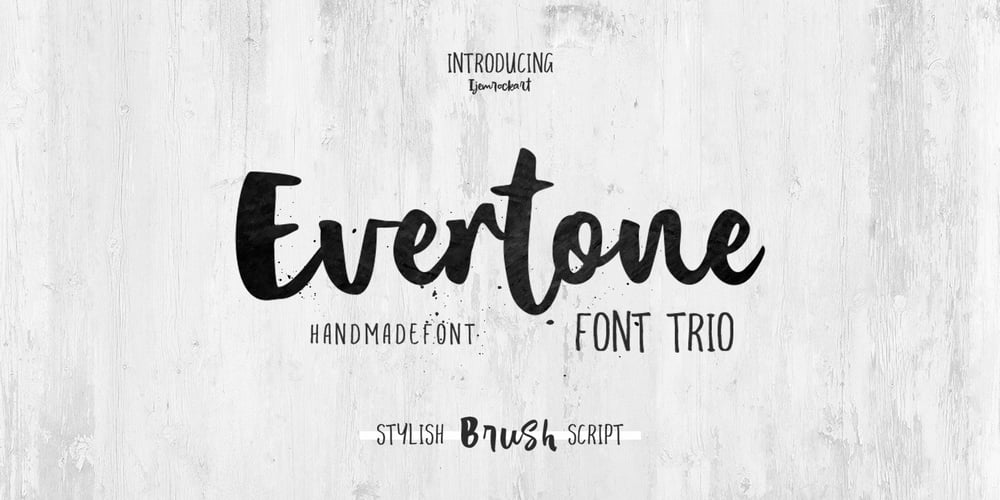
Evertone Font Family was designed by Ferdiansyah and published by ijemrockart. Evertone contains 3 styles and family package options. Evertone Family is a modern calligraphy font with a current handwriting style. This font is perfect for branding, wedding invites, magazines, mugs, business cards, quotes, posters, and more. Evertone Family is equipped with 300 glyphs, meaning you will be able to choose the letters according to your likes. There are lots of variation and options for each letter, so you can customize on your design choices. To access the variety of OpenType features you can use applications such as Adobe Photoshop CS / Adobe Photoshop CC, Adobe Illustrator CS / Adobe Illustrator CC, Adobe Indesign and Corel Draw. If you do not have a program that supports OpenType, you can access all the alternate glyphs using Font Book (Mac) or Character Map (Windows). If you have any question, do not hesitate to contact me by email ijemrealmad54@gmail.com Thanks and happy designing ๐